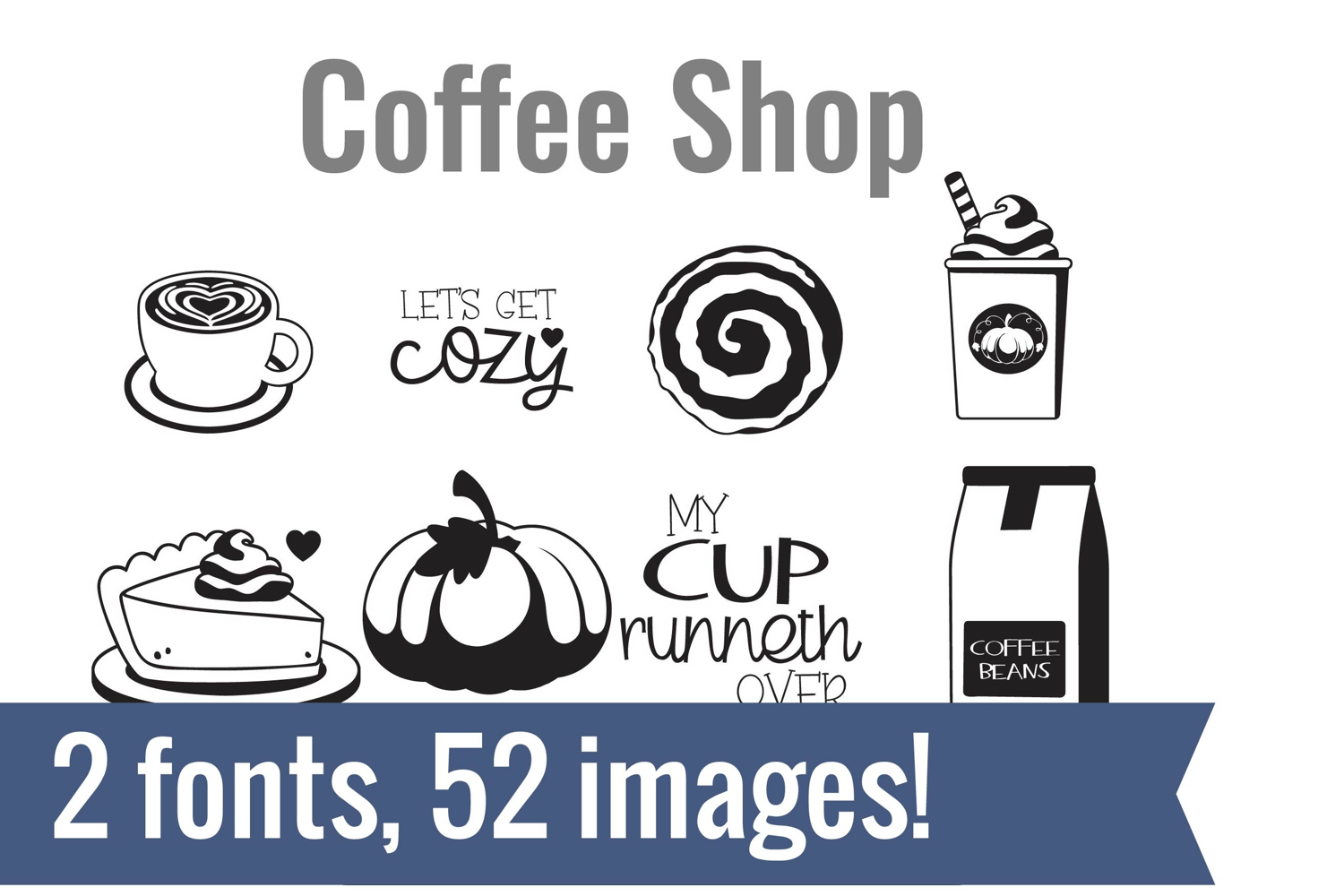
Coffee Shop Dingbats
Unlock endless creativity with two perfectly coordinated fonts! There are two dingbat fonts in this bundle, both featuring the cutest Scrooge characters and imagery.
Tired of spending hours searching for the perfect icons and graphics? Our dingbat fonts put dozens of cohesive, scalable designs at your fingertips. Simply install the font and type a letter to produce a pre-made image. From charming seasonal icons for holiday cards to intricate frames for your invitations, these fonts let you create stunning designs for vinyl cutting, paper crafts, planners, and more.